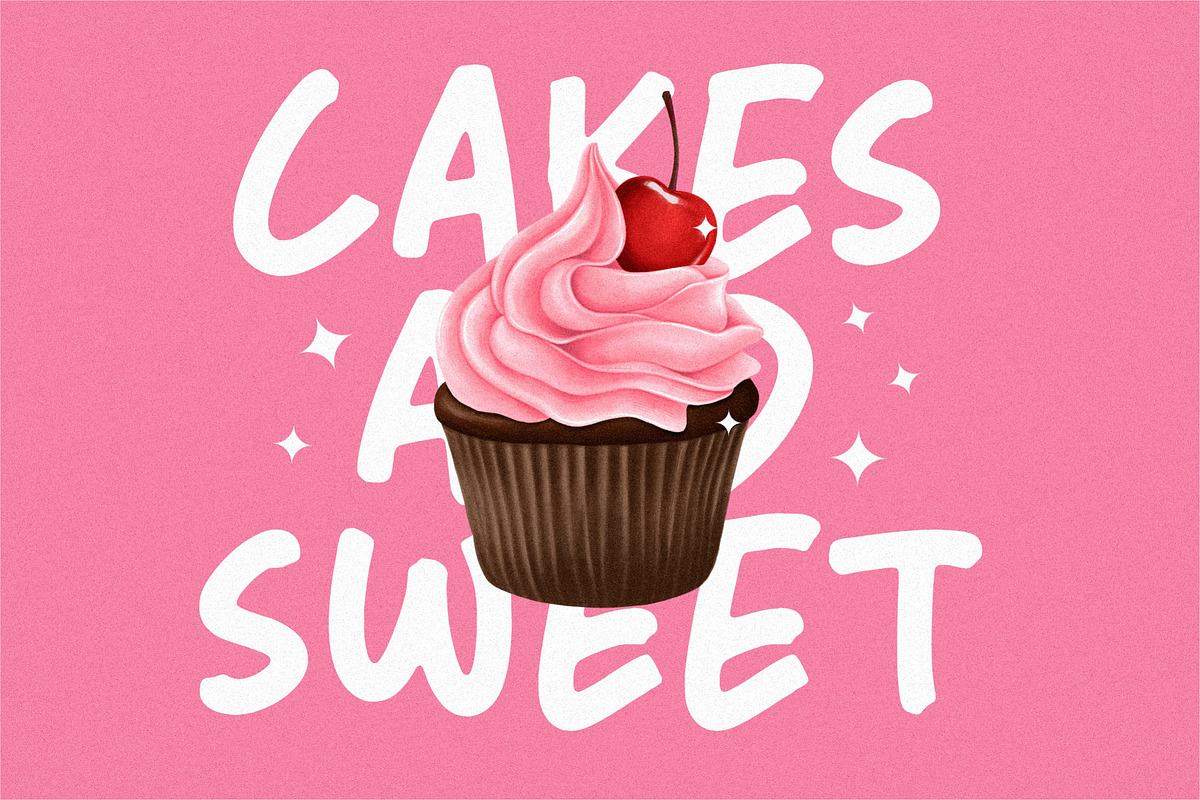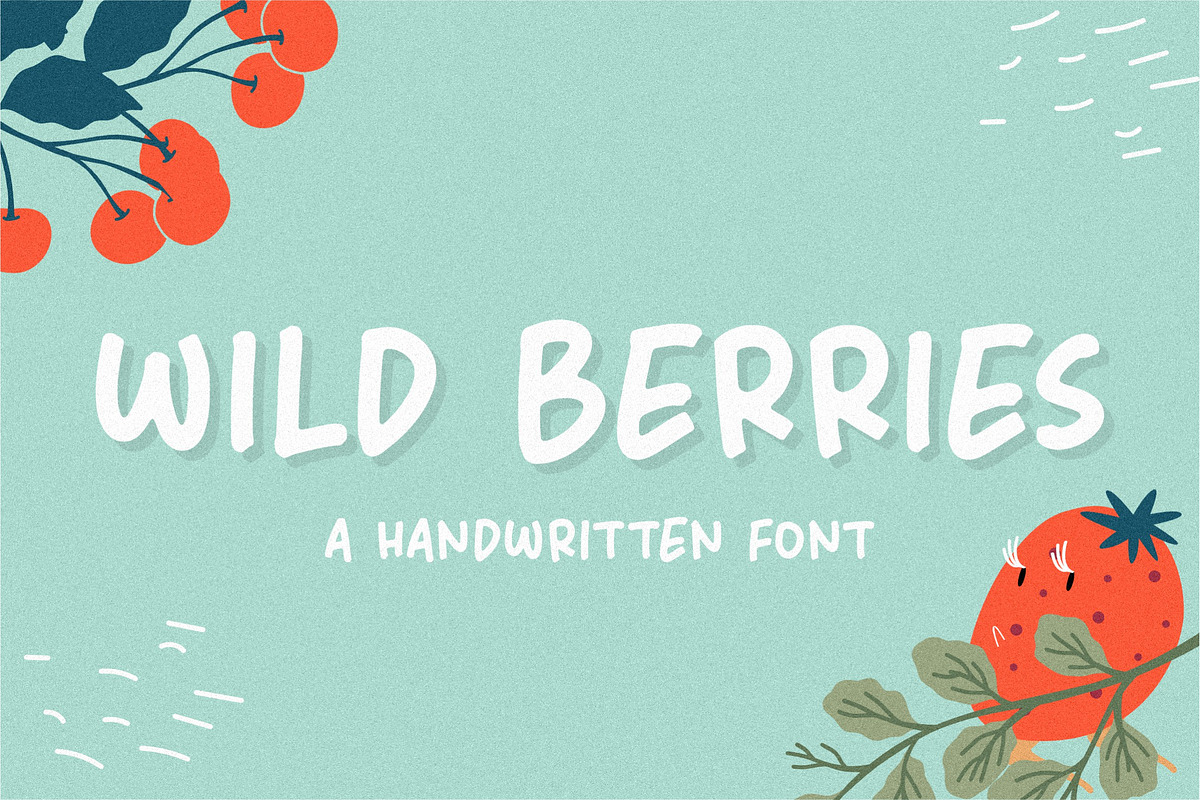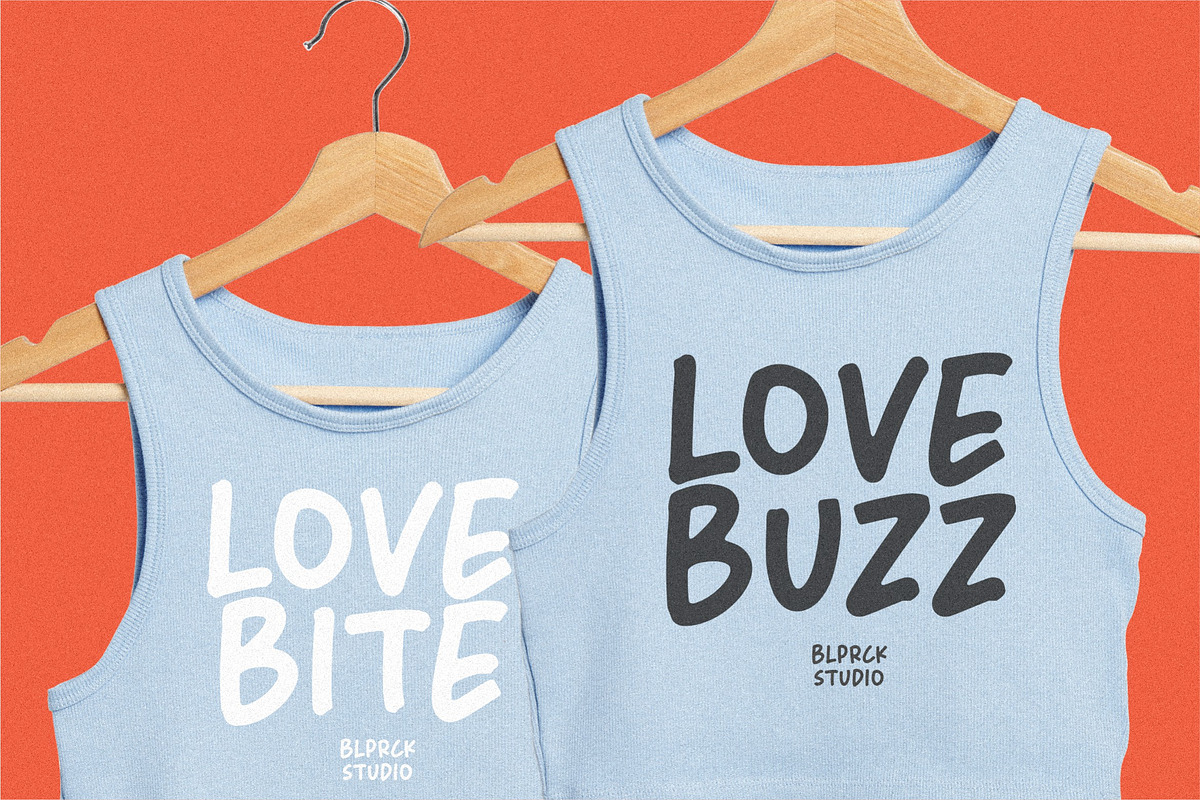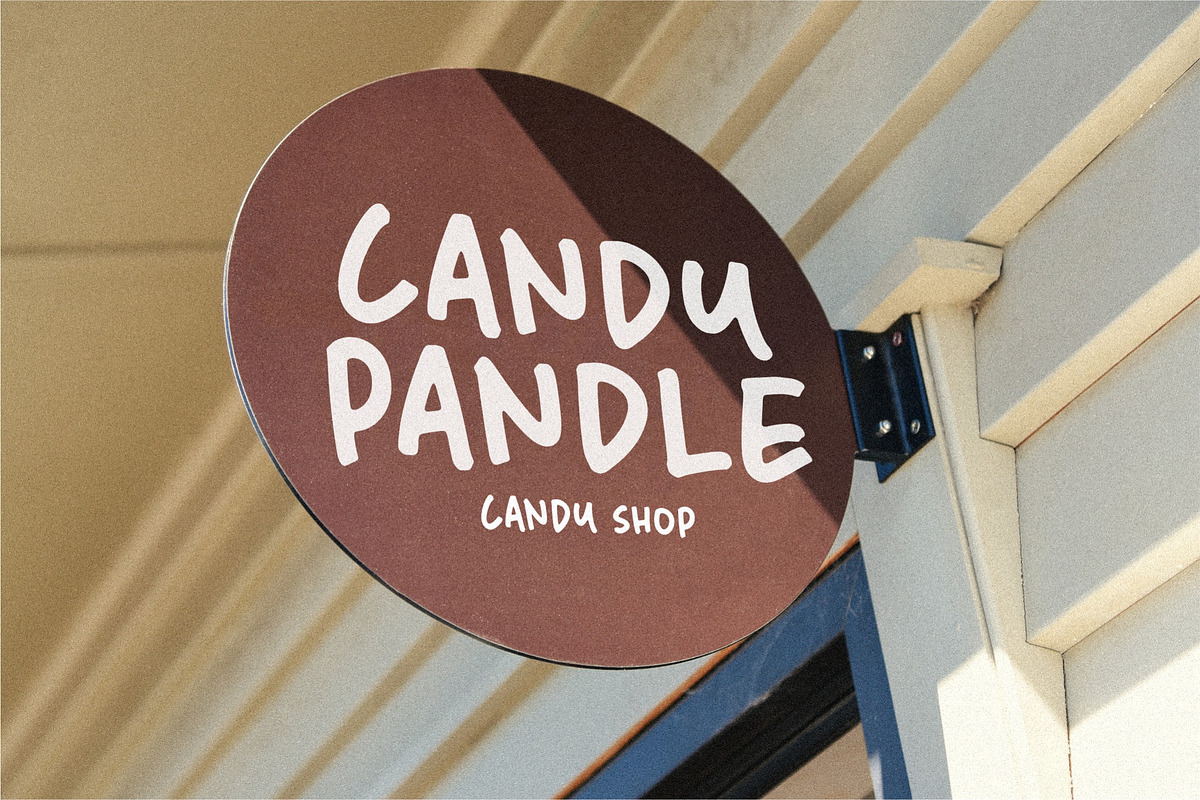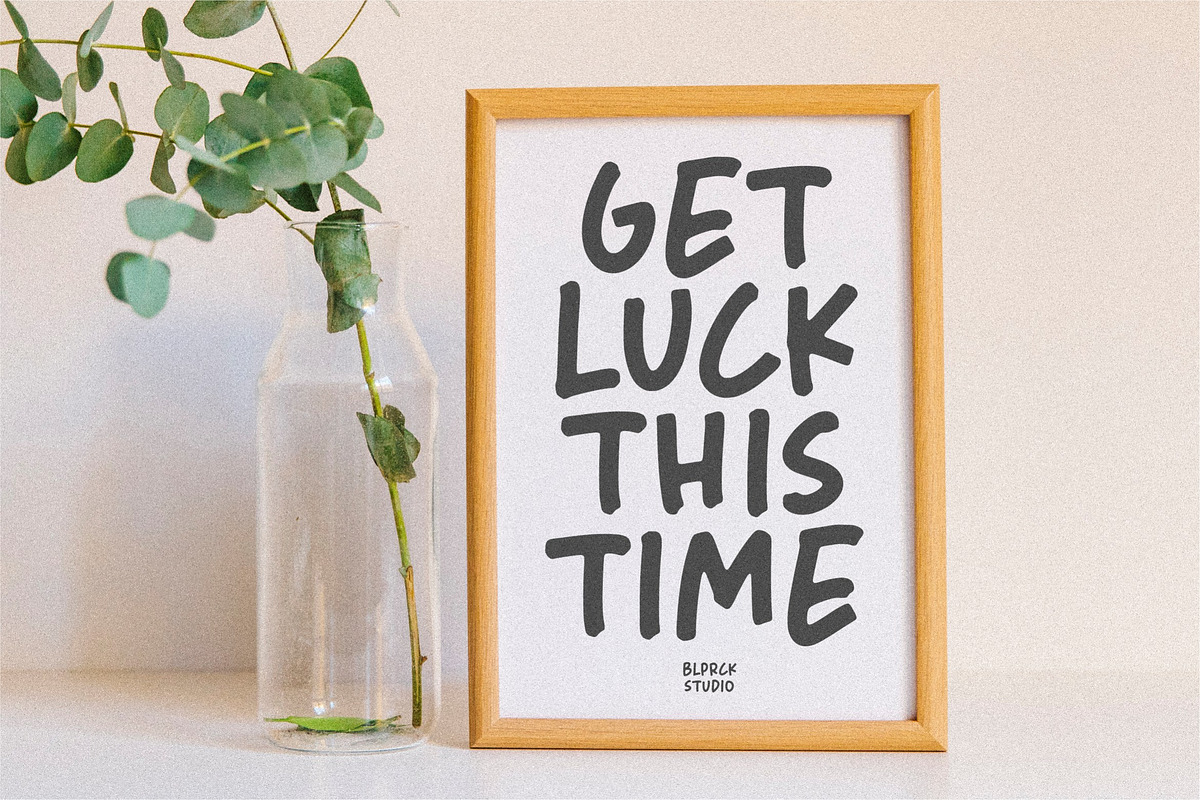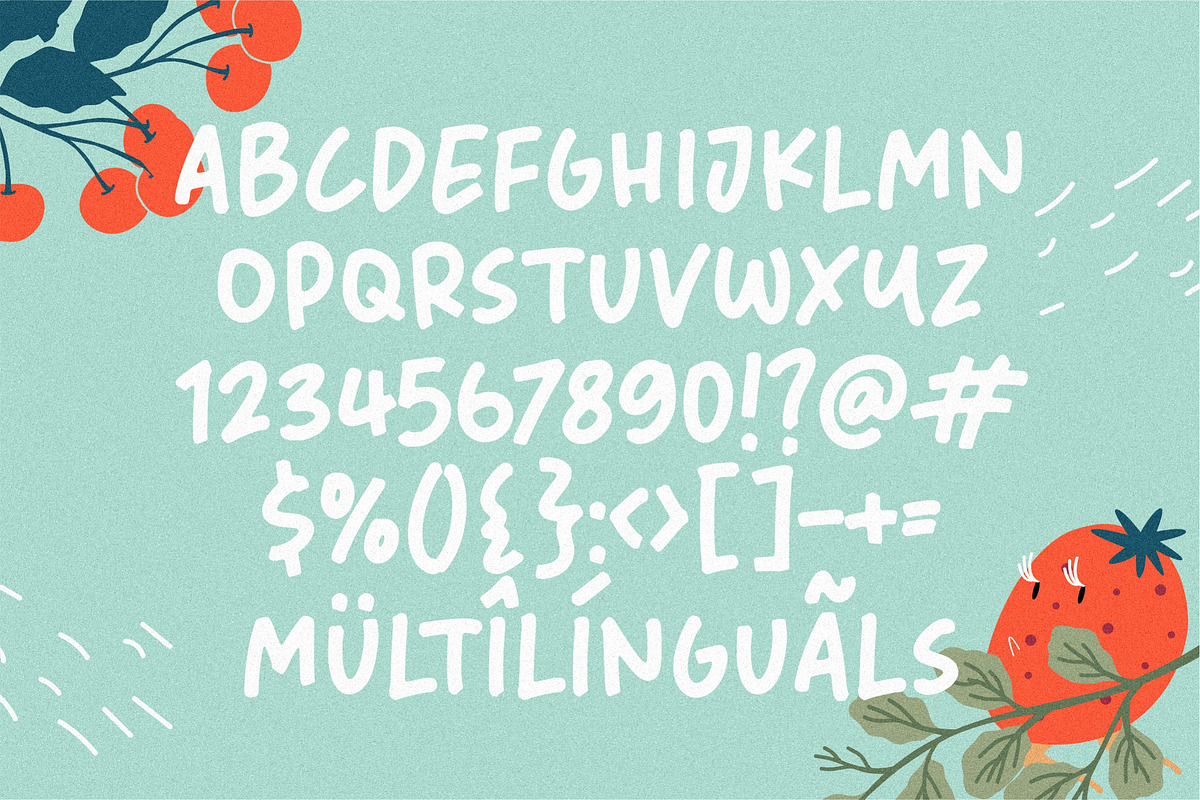
Wild Berries Handwritten Font
Wild Berries is a Handwritten Font.
Whether you’re using it for crafts, digital design, presentations, or making greeting cards, this font has the potential to become your favorite go-to font, no matter the occasion!
This font only has allcaps letters.